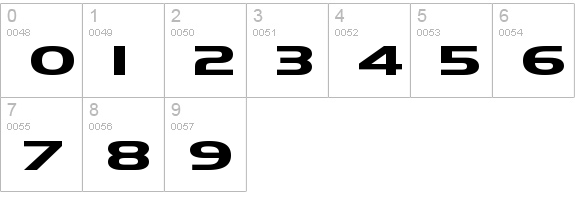
Hanzel Extended Bold is a strong, high-contrast, extended-width variant in the Hanzel typeface family \xE2\x80\x94 well suited to headlines, attention-grabbing titles, and strong calls-to-action.
Hanzel Extended Bold is a stunning and versatile font that exudes confidence and modernity. With its bold and striking design, this typeface is perfect for making a statement and capturing attention in any project. The Hanzel Extended Bold font features clean lines and sharp edges, giving it a contemporary and sleek aesthetic. Whether used for headlines, titles, logos, or branding materials, this font commands attention and adds a touch of sophistication to any design. What sets Hanzel Extended Bold apart is not just its exceptional design, but also the fact that it is freely available to download at FontsMarket.com. This means that designers and creatives can access this extraordinary font without any cost, making it an invaluable resource for any project or budget. This font is highly legible, ensuring that your message is conveyed with clarity and impact. Its extended character set includes uppercase letters, lowercase letters, numerals, punctuation marks, and special characters, providing you with endless possibilities for creative expression. Hanzel Extended Bold is perfect for a wide range of applications, including posters, advertisements, websites, packaging, branding materials, and more. Its versatility allows it to seamlessly adapt to various design styles and themes, making it a go-to choice for both professional and personal projects. Whether you're a graphic designer, a web developer, or an aspiring artist, Hanzel Extended Bold is a font that will elevate your work to new heights. Its bold and commanding presence will captivate your audience and leave a lasting impression. So why wait? Download Hanzel Extended Bold for free at FontsMarket.com and unlock the full potential of your designs. Experience the power and elegance of this exceptional font and take your creative projects to the next level.